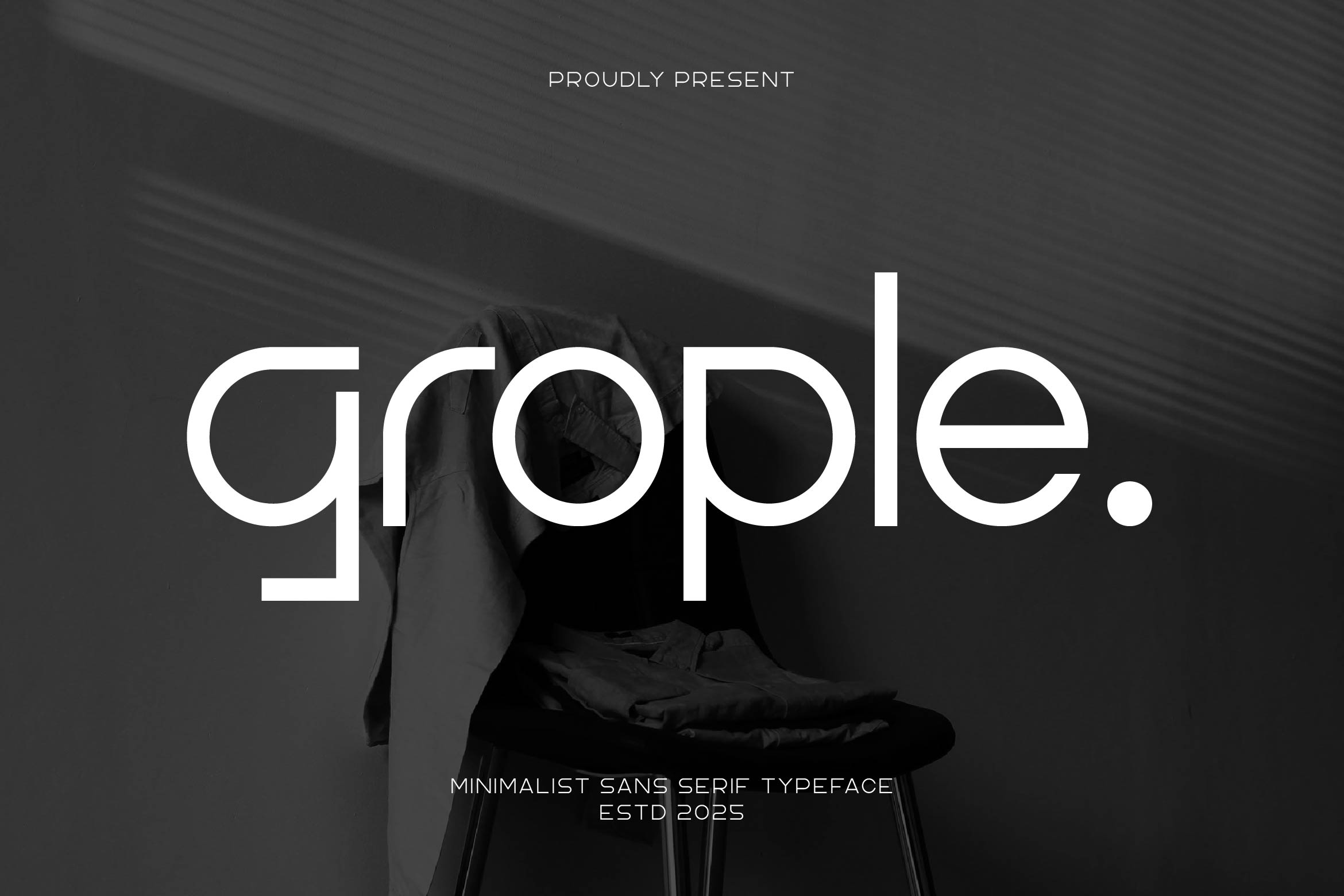
- Grople Minimalist Sans Serif Font
Grople is a sleek and contemporary sans serif font that embodies the essence of minimalism. With clean lines, balanced shapes, and refined spacing, Grople offers a sense of modern simplicity perfect for branding, logo design, packaging, magazines, and digital interfaces.
Its geometric foundation creates a timeless aesthetic that remains versatile across different visual contexts — from bold headlines to subtle body text. Designed to convey clarity and professionalism, Grople fits perfectly into modern brands, creative studios, and editorial layouts seeking an elegant yet approachable tone.
The font includes uppercase and lowercase letters, numerals, punctuation, multilingual support, and stylistic alternates for creative flexibility.
Bring a refined modern touch to your next project with Grople, a minimalist sans serif typeface built for clarity, balance, and timeless sophistication.